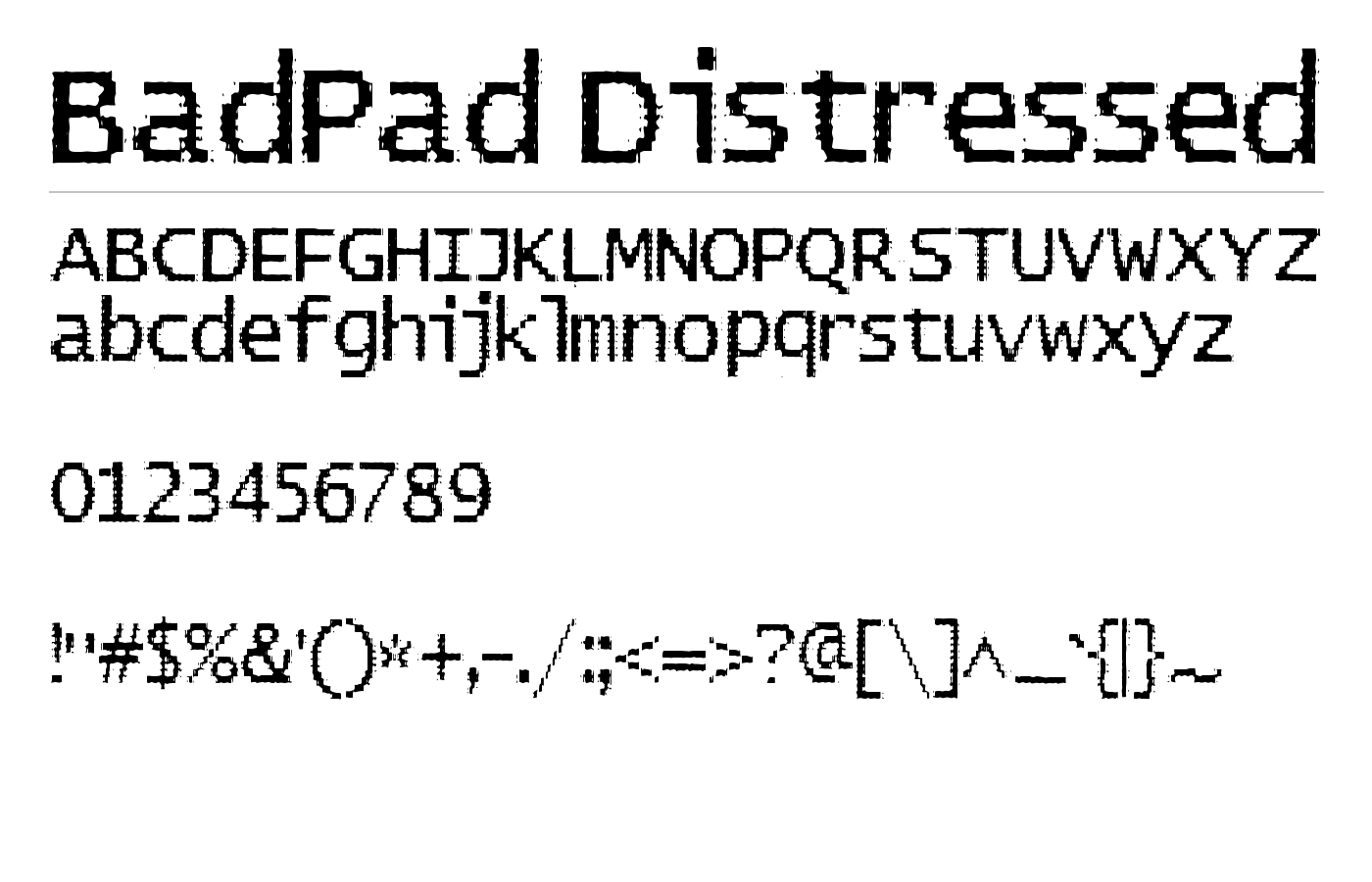
BadPad Distressed is a rugged, sans serif font characterized by its pixelated, worn-out appearance that gives it a vintage, tech-inspired aesthetic. It features a regular weight with a consistent width and a relatively high x-height, making it highly legible despite its rough, broken edges. This font is perfect for designs needing a gritty, digital or industrial vibe, such as posters, video game graphics, or edgy branding where a distressed, retro-futuristic feel is desired.
BadPad Distressed Font
About BadPad Distressed Font
| Font family | BadPad Distressed Font |
| Designer | Phelan Riessen |